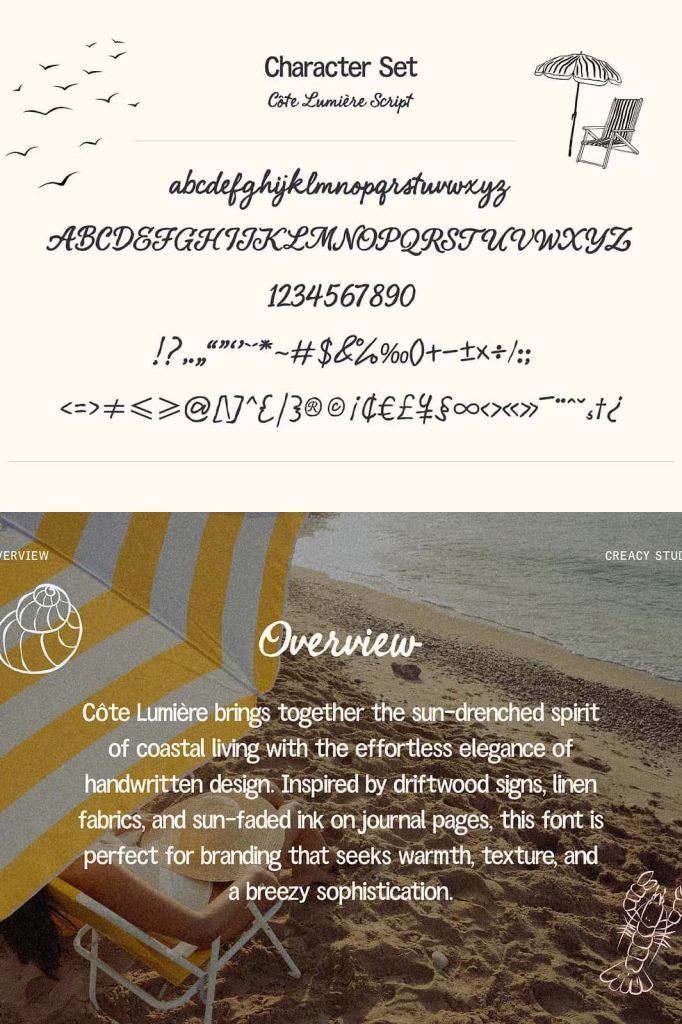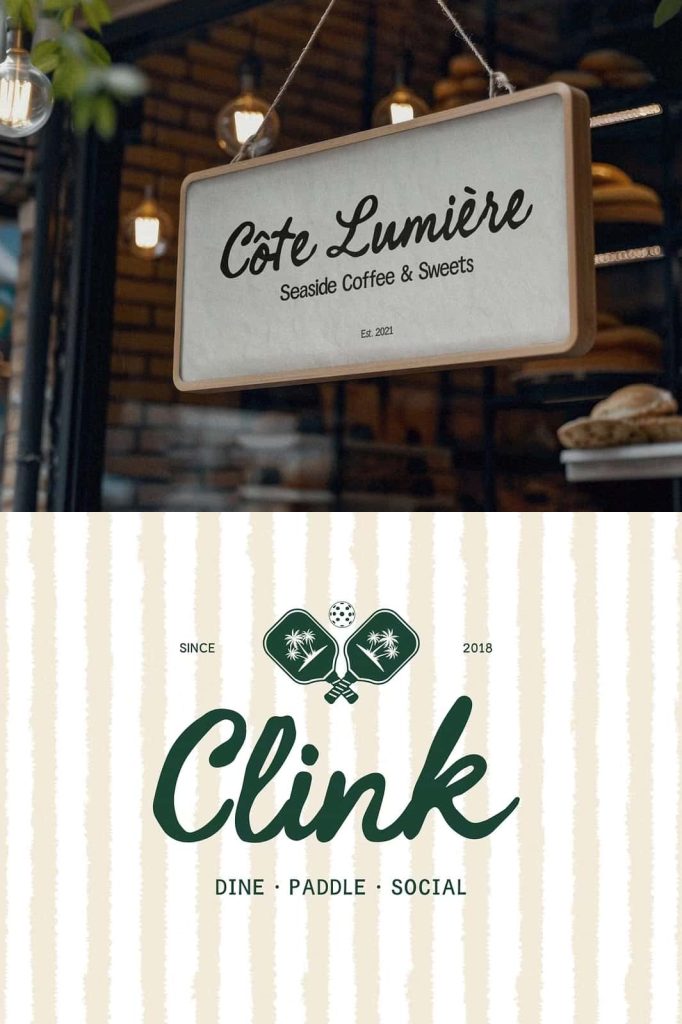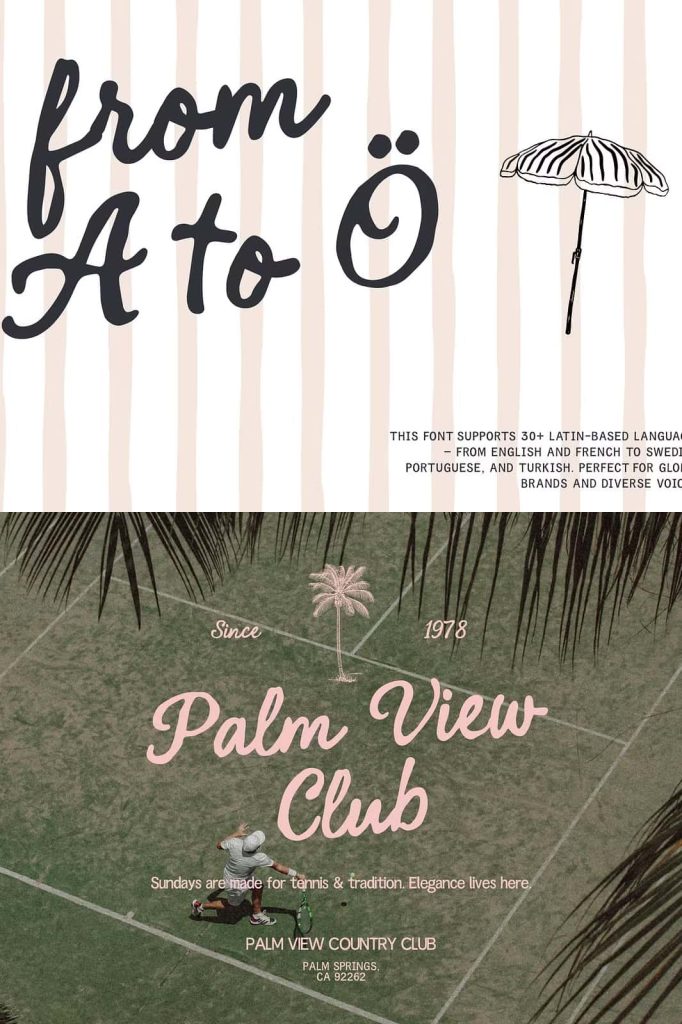
Côte Lumière Handwritten Script Font
Côte Lumière Handwritten Script Font captures the effortless beauty of coastal living through elegant handwritten letterforms inspired by sun-soaked beaches, ocean breezes, and relaxed bohemian lifestyles. Designed to evoke the atmosphere of endless summer days by the sea, this script font combines graceful curves, organic movement, and soft handcrafted details that bring warmth and personality to every design.
Inspired by the timeless charm of coastal destinations and artistic seaside communities, Côte Lumière delivers a sophisticated yet approachable aesthetic. Its flowing strokes and naturally relaxed appearance create typography that feels authentic, inviting, and full of character. Whether you are developing a premium lifestyle brand, designing boutique packaging, or creating inspiring travel content, this font helps communicate elegance while maintaining a casual and effortless appeal.
The unique personality of Côte Lumière makes it ideal for designers who want to create visuals that feel refined, creative, and emotionally engaging. Its handwritten style reflects the beauty of personal expression while preserving the readability needed for professional branding and marketing projects.
Inspired by Coastal Bohemian Living
Côte Lumière draws its inspiration from the relaxed lifestyle often associated with coastal retreats, seaside villages, and bohemian creative communities. The font reflects the feeling of walking along sandy beaches, enjoying warm sunsets, and embracing a slower, more intentional way of life.
Every letter has been designed to capture the effortless elegance of handwritten notes penned during summer travels. The natural flow and fluid movement create a sense of freedom and creativity that instantly transports viewers to picturesque coastal settings.
This inspiration makes Côte Lumière particularly appealing for brands and creative projects that focus on travel, wellness, fashion, hospitality, and lifestyle experiences.
Elegant Handwritten Curves with Natural Flow
One of the defining features of Côte Lumière is its beautifully balanced handwritten structure. The font showcases flowing curves and smooth transitions that mimic the rhythm of authentic handwriting. These carefully crafted details create a sophisticated appearance while preserving the spontaneity and charm of hand-drawn lettering.
The elegant script style allows words to move naturally across the page, creating visually appealing compositions that feel graceful and organic. This fluidity helps establish a sense of connection and authenticity, making the font highly effective for communication that aims to feel personal and heartfelt.
Whether used in headlines, logos, product labels, or decorative text, Côte Lumière brings a refined handwritten quality that enhances the overall visual experience.
Soft Sun-Faded Strokes for a Relaxed Aesthetic
Côte Lumière embraces the subtle beauty of weathered coastal environments through its soft and natural letterforms. The strokes feel relaxed and gently textured, reflecting the look of handwritten notes influenced by sunshine, sea air, and time-worn elegance.
This distinctive characteristic gives the font a unique visual identity that feels warm and approachable. Rather than appearing overly formal or rigid, the lettering communicates comfort, creativity, and sophistication in a natural and effortless way.
The result is a font that feels equally suitable for luxury-inspired branding and casual lifestyle projects, providing exceptional versatility without losing its distinctive personality.
Ideal Uses for Côte Lumière Handwritten Script Font
- Coastal and beach-inspired branding projects
- Boutique product packaging and labels
- Travel journals and vacation-themed publications
- Lifestyle blogs and social media content
- Beach bars, cafés, and hospitality branding
- Fashion and beauty marketing materials
- Wedding invitations and event stationery
- Inspirational quotes and creative artwork
- Luxury handmade product branding
- Website headers and promotional campaigns
Create Memorable Lifestyle Branding
Modern lifestyle brands often rely on typography to establish emotional connections with their audience. Côte Lumière helps achieve this by introducing warmth, authenticity, and elegance into every visual touchpoint. Its handwritten appearance communicates creativity and personality while maintaining the sophistication required for professional branding.
The font works exceptionally well for businesses that emphasize experiences, craftsmanship, wellness, travel, and personal expression. By incorporating Côte Lumière into a brand identity, designers can create visuals that feel welcoming, aspirational, and memorable.
Its ability to blend luxury and casual charm allows brands to appeal to customers seeking authenticity without sacrificing style or quality.
For designers seeking a script font that captures the spirit of coastal summers while maintaining professional versatility, Côte Lumière is an exceptional choice. Its timeless handwritten style transforms ordinary typography into elegant visual storytelling, helping brands and creative projects leave a lasting impression that feels both personal and unforgettable.